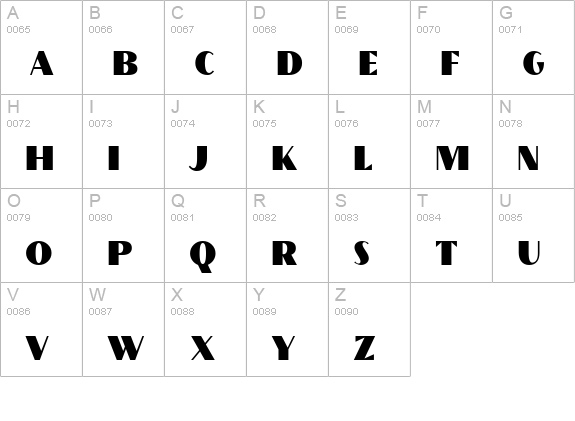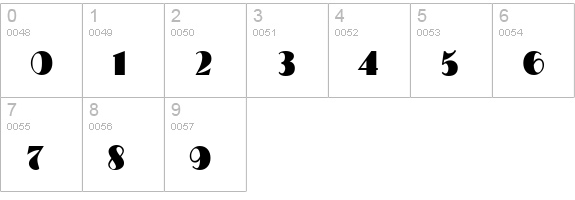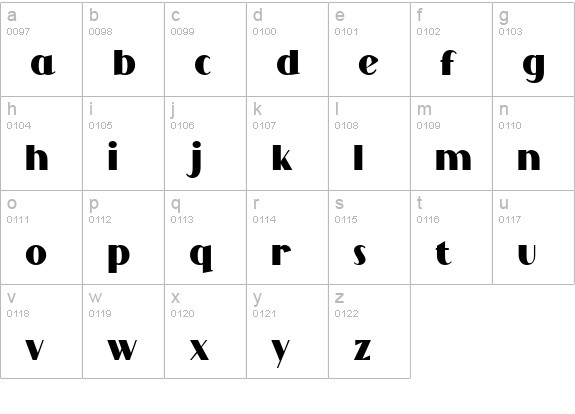
Grandecort Bold Font Details
Grandecort Bold is a strong, high-contrast variant in the Grandecort typeface family \xE2\x80\x94 well suited to headlines, attention-grabbing titles, and strong calls-to-action.
Grandecort Bold is a visually striking and versatile font that exudes confidence and sophistication. With its bold and modern design, this typeface is perfect for making a statement in your designs. Whether you are creating a poster, logo, or headline, Grandecort Bold will grab attention and leave a lasting impression. The best part? Grandecort Bold is available for free download at FontsMarket.com. This means you can easily access this stunning font and use it in your projects without any cost. Now you can elevate your designs with a premium-looking font that won't break the bank. Don't miss out on the opportunity to add Grandecort Bold to your font collection today!